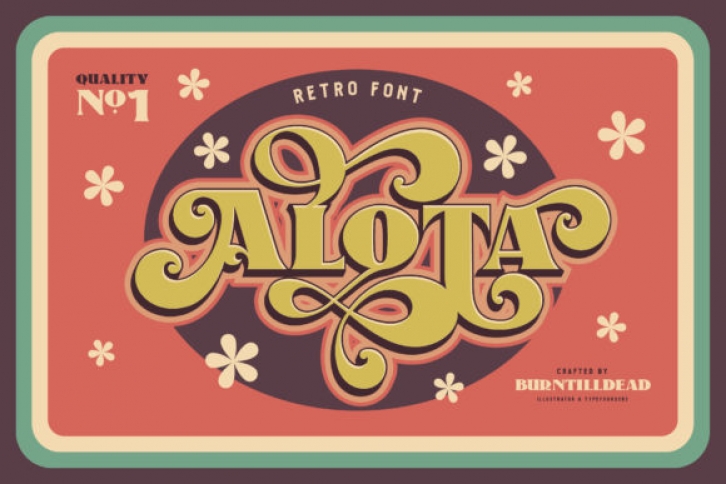
Alota is a bold, classic and elegant display font. Add this imposing font to your library, and employ it to your most favorite creations. Alota is PUA encoded which means you can access all of the glyphs and swashes with ease!